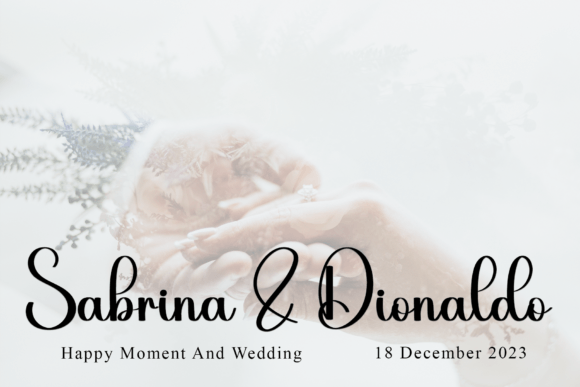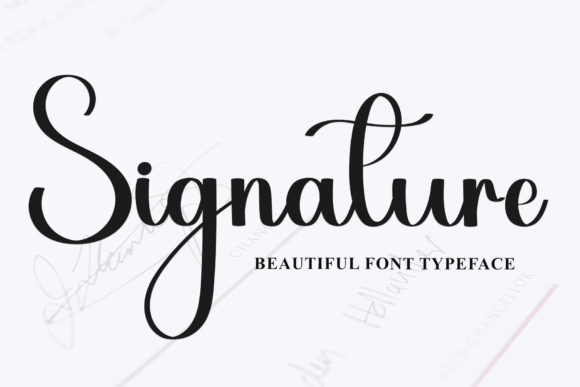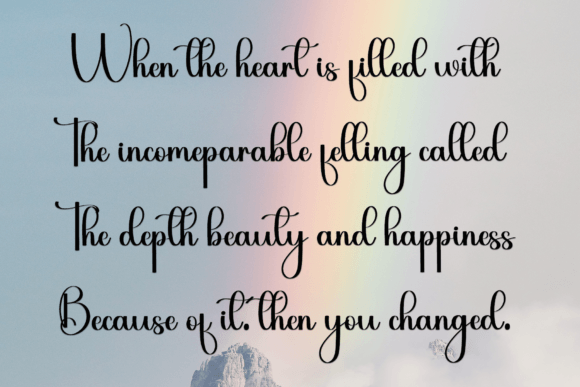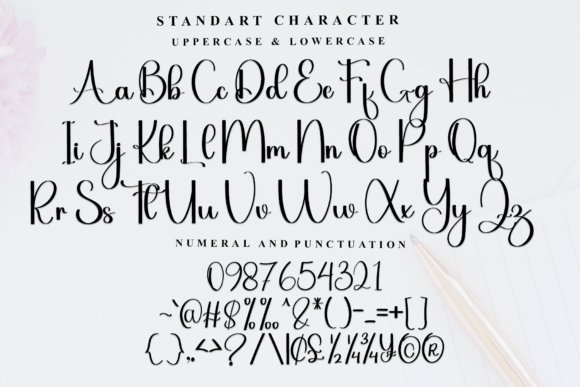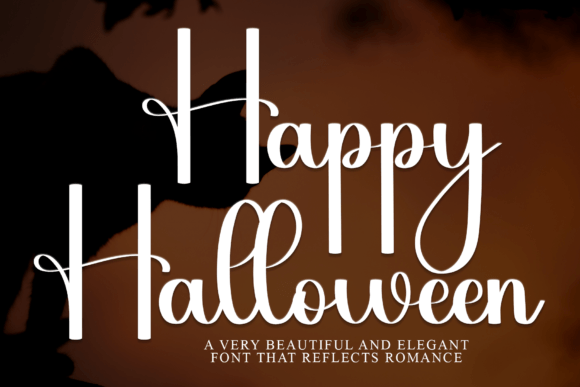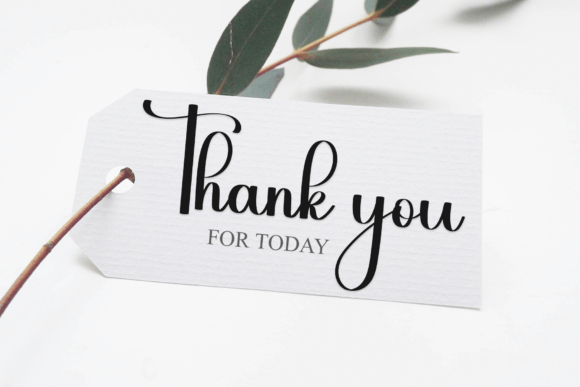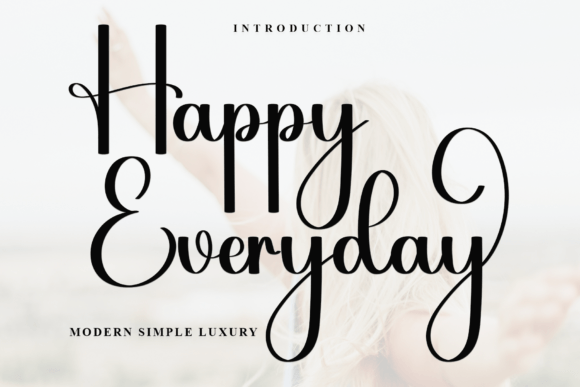
Introducing Happy Everyday Font: Spread Joy and Cheer with this Festive Typeface
Are you looking for a font that embodies the spirit of the holiday season? Do you want to add a touch of charm and whimsy to your designs? Look no further than the Happy Everyday Font! This delightful typeface is perfect for designers and crafters who want to create joyful and nostalgic projects that capture the essence of the holiday season.
What makes Happy Everyday Font so special?
Happy Everyday Font is a decorative typeface that is specifically designed to bring a cheerful and festive atmosphere to your designs. With its unique flair and decorative elements, this font is sure to add a touch of magic to your projects. Whether you’re creating greeting cards, gift labels, or holiday-themed projects, Happy Everyday Font is the perfect choice.
One of the standout features of Happy Everyday Font is its PUA (Private Use Area) coding. This means that you can easily access all the amazing glyphs and ligatures that make this font so special. With PUA coding, you can unlock a world of creative possibilities and take your designs to the next level.
Happy Everyday Font is a dream come true for designers and crafters who love to create holiday-themed projects. Whether you’re a professional designer or a hobbyist, this font is perfect for anyone who wants to add a touch of whimsy and charm to their designs.
Imagine being able to create stunning greeting cards, gift labels, and holiday-themed projects that capture the essence of the season. With Happy Everyday Font, you can do just that. This font is perfect for:
- Greeting cards: Create beautiful and festive greeting cards that will make your loved ones feel special.
- Gift labels: Add a touch of charm to your gift labels and make them stand out from the crowd.
- Holiday-themed projects: Create stunning holiday-themed projects, such as party invitations, decorations, and more.
Why Choose Happy Everyday Font?
So why choose Happy Everyday Font over other typefaces? Here are just a few reasons why this font stands out:
- Unique and decorative: Happy Everyday Font is a one-of-a-kind typeface that adds a touch of whimsy and charm to your designs.
- PUA coded: With PUA coding, you can easily access all the amazing glyphs and ligatures that make this font so special.
- Festive and cheerful: This font is specifically designed to capture the spirit of the holiday season, making it perfect for holiday-themed projects.
Get Ready to Spread Joy and Cheer with Happy Everyday Font
If you’re looking for a font that will add a touch of magic to your designs, look no further than Happy Everyday Font. With its unique flair, decorative elements, and PUA coding, this font is perfect for designers and crafters who want to create joyful and nostalgic projects.
In conclusion, Happy Everyday Font is a must-have typeface for any designer or crafter who wants to add a touch of charm and whimsy to their designs. With its unique flair, decorative elements, and PUA coding, this font is perfect for holiday-themed projects. So download Happy Everyday Font today and start creating joyful and nostalgic designs that capture the essence of the holiday season!